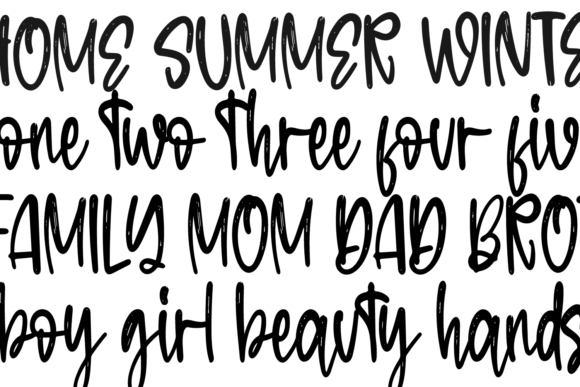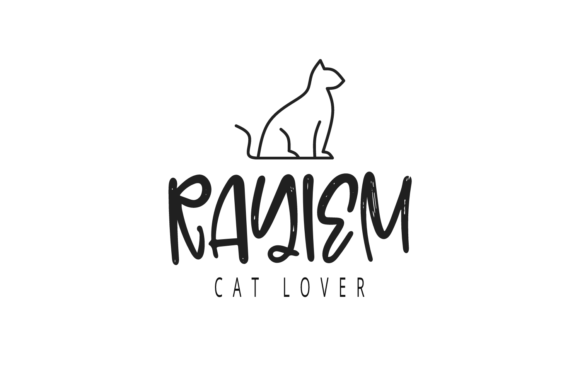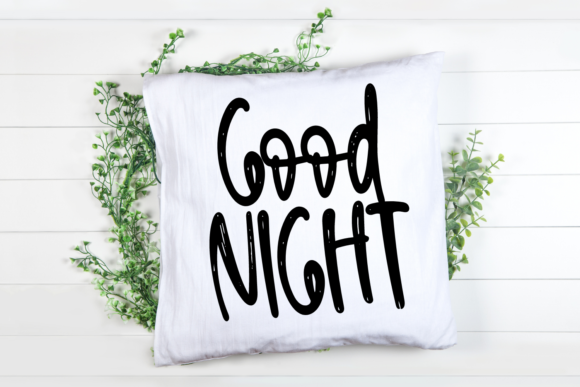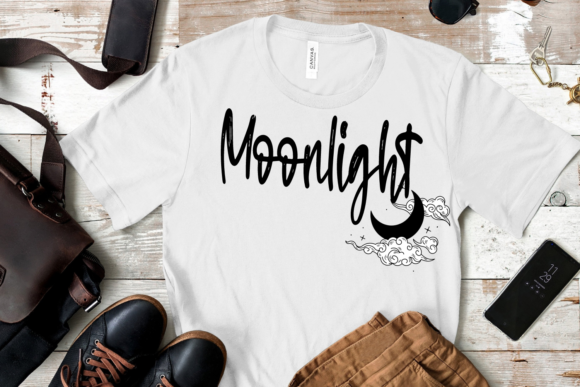
About Flowers Sublimation Font
Introducing Flowers Sublimation, a magical script font meticulously crafted with a touch of elegance. Whether you’re searching for fonts for Instagram, calligraphy scripts for DIY projects, or any creative endeavor, Flowers Sublimation transforms every idea into a true piece of art.
The charm of Flowers Sublimation lies in its magical and elegant script design, making it a versatile choice for a variety of applications. Whether you’re using it for social media graphics, DIY projects, or any creative pursuit, this font adds a touch of enchantment to your designs.
For Instagram or other social media platforms, Flowers Sublimation becomes a captivating element, creating visually stunning and elegant posts. The magical script adds an artistic flair to your content, making it stand out and capture the attention of your audience.
In DIY projects, Flowers Sublimation turns ordinary designs into works of art. Whether you’re crafting cards, posters, or other handmade creations, the font’s elegant script elevates the overall aesthetic, creating visually pleasing and sophisticated results.
Flowers Sublimation is more than just a font; it’s a creative tool that transforms your ideas into enchanting pieces of art. Embrace the magical and elegant touch of Flowers Sublimation as you confidently incorporate it into your various creative projects, turning each one into a true masterpiece.